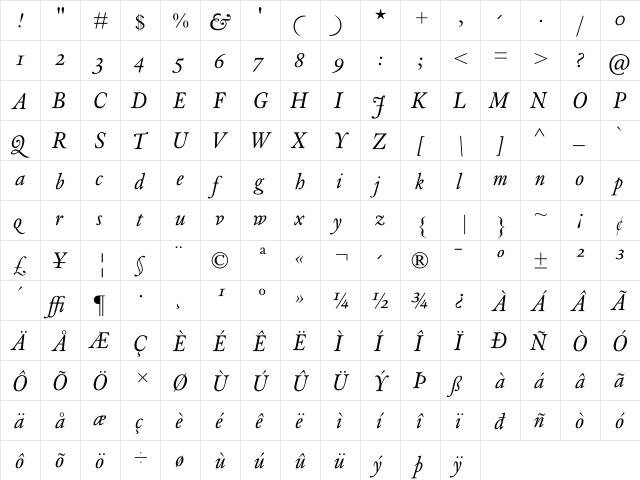
Custodia6 NormalItalic
Design Context for Custodia6 Typeface
Custodia6 offers clean, dependable letterforms without strong stylistic allegiance, making it a practical choice for designers who need flexibility. The dynamic lean of this cut emphasises speed and emphasis in any layout.
Pro Tip: Use Custodia6 for emphasis, pull quotes, and subheadings where its slanted energy can add rhythm to the layout.